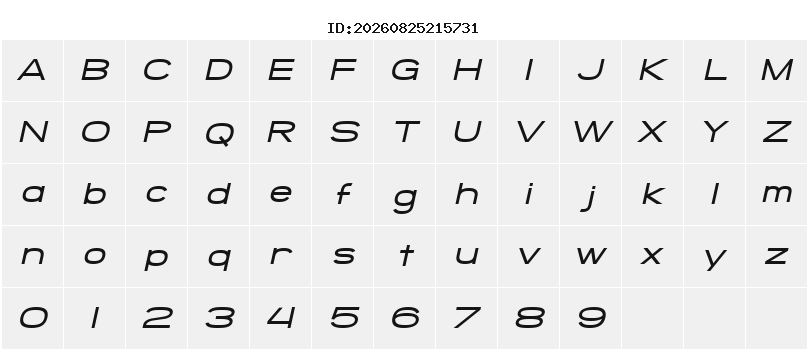
• Font Name: SF Grandezza
• Font Style: Medium Oblique
• Font ID: ShyFontsTypeFoundry: SF Grandezza Medium Oblique: 2000
• Full Font Name: SF Grandezza Medium Oblique
• PostScript Name: SFGrandezza-MediumOblique
• Character Count: 252
About SF Grandezza.ttf
SF Grandezza.ttf is a modern, elegant sans-serif font designed for ultimate readability and visual harmony. Perfect for branding, headlines, web design, and print materials.